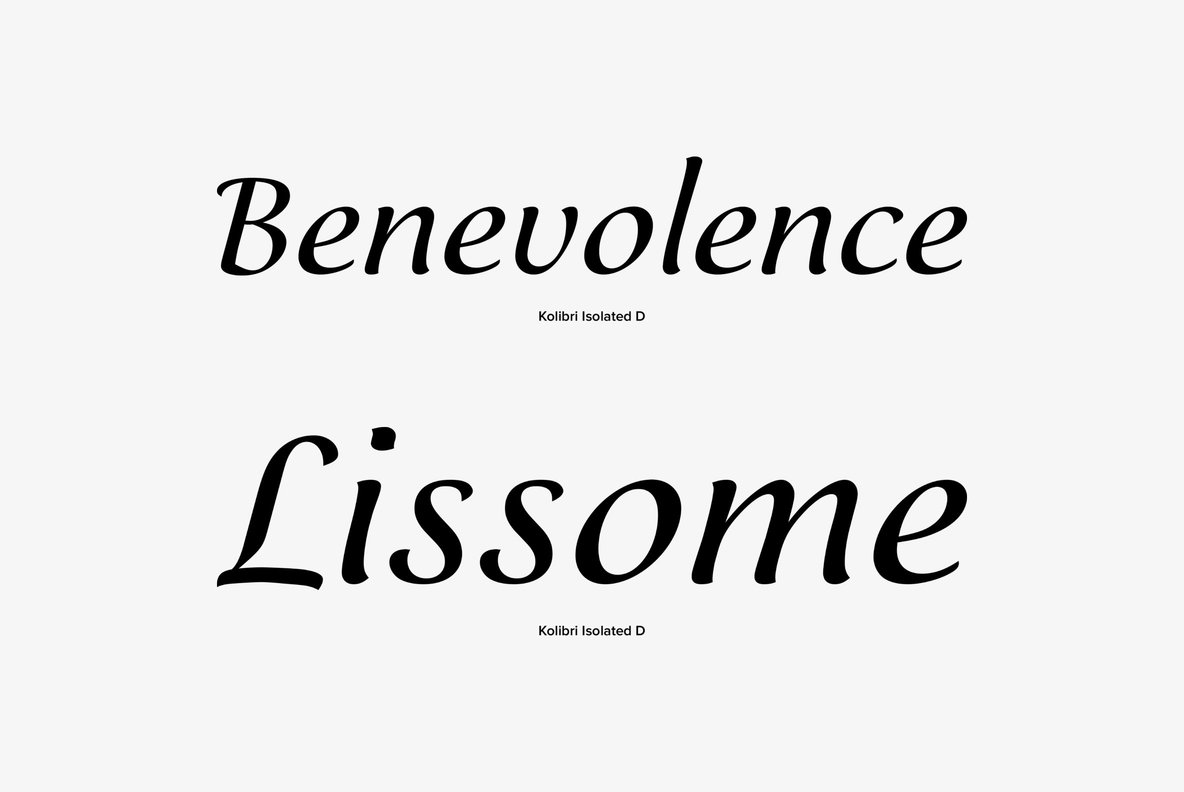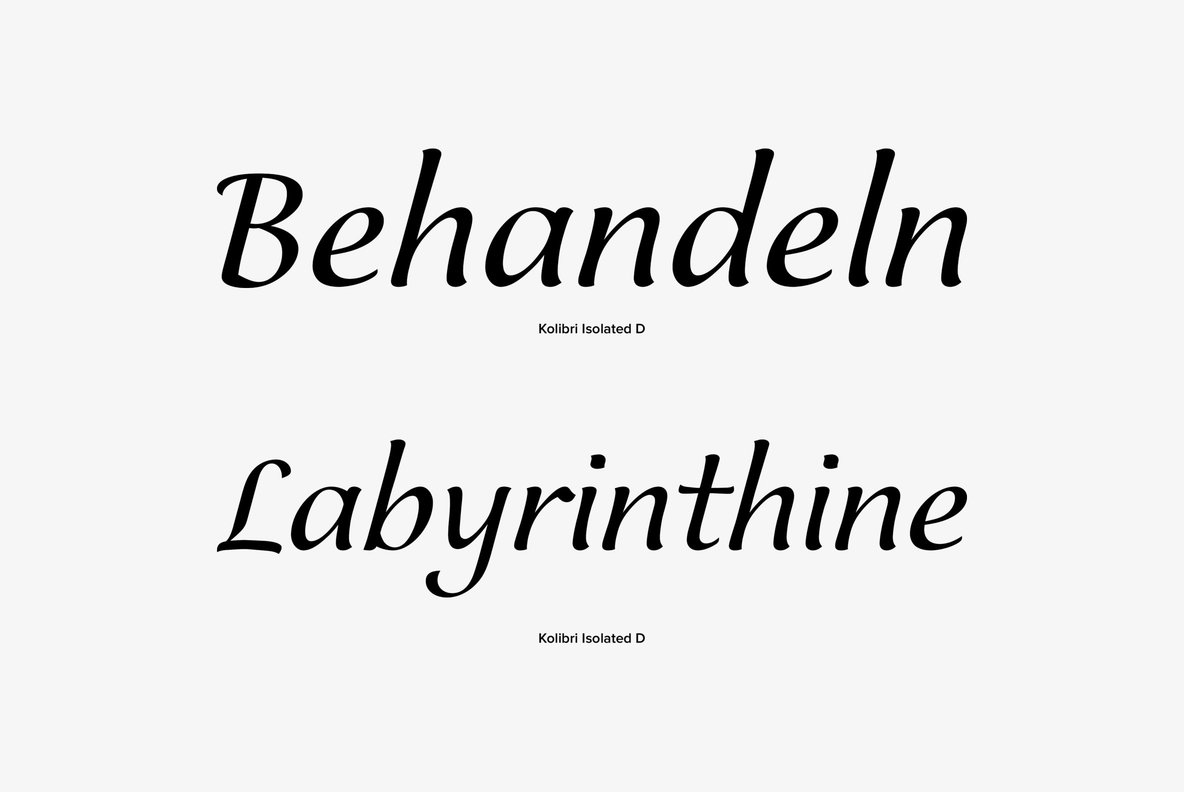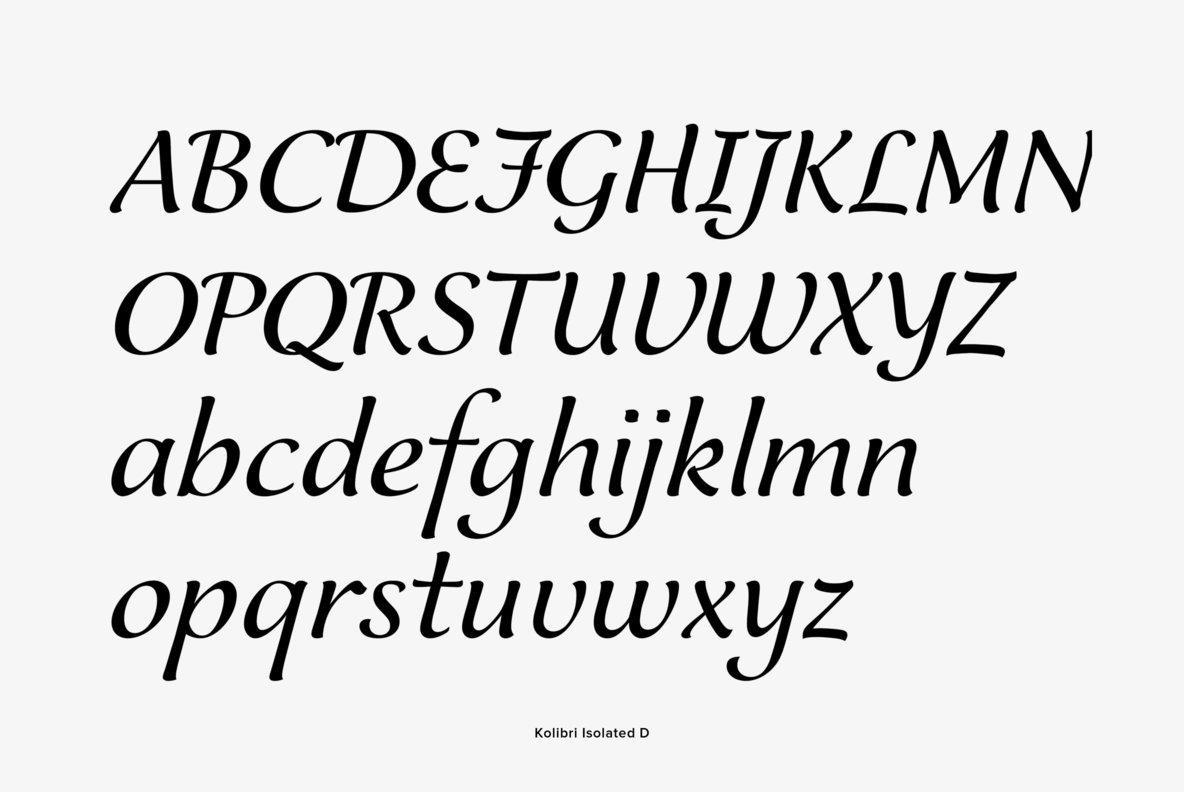
Designed by Kris Holmes in 1993, Kolibri Isolated is a simple script font release by URW. Contains language support for West, East, Turkish, Baltic, and Romanian.